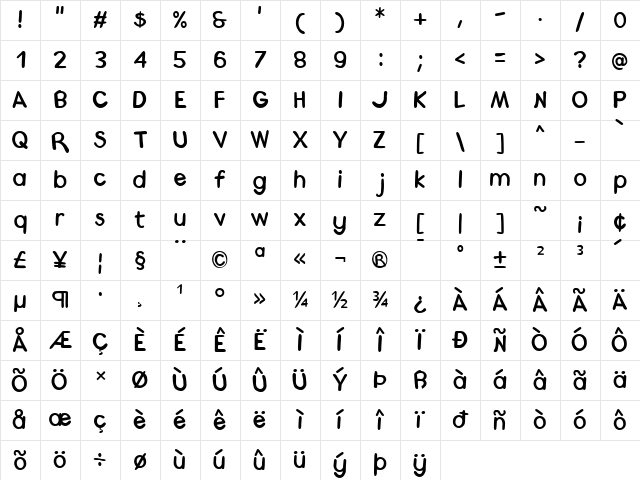
Medrano Regular Free Font
Medrano Regular
Design Context for Medrano
Medrano is a composed and adaptable typeface that performs quietly and consistently across a wide range of design contexts.